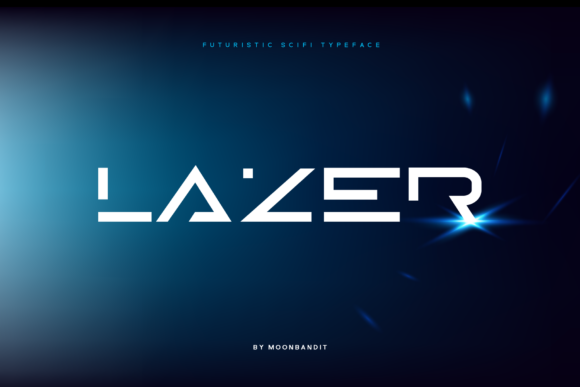
Embark on a typographic journey with Lazer Font, the display font that dances gracefully between digital allure and contemporary elegance. Crafted by the visionary minds at moonbandit, Lazer Font is not just a collection of characters; it's an artistic expression that captures the essence of digital beauty.
In a world saturated with visual noise, Lazer Font stands out as a beacon of clarity and precision. Its minimalist design celebrates the power of negative space, allowing your words to breathe and resonate with your audience. The sharp, geometric lines of Lazer Font exude a sense of confidence and authority, making it the perfect choice for modern and tech-savvy brands.
But Lazer Font is more than just a pretty face. It's a font that's engineered for functionality and readability. Whether you're crafting a sleek website, designing eye-catching marketing materials, or creating engaging social media posts, Lazer Font ensures your message is delivered with impact and clarity.
Explore the captivating world of Lazer Font and discover a new dimension of typographic expression. Unleash your creativity and watch as your words transform into captivating works of art. Let Lazer Font elevate your digital presence and leave a lasting impression on your audience.
Dive into the world of Lazer Font today and experience the difference that great typography can make.